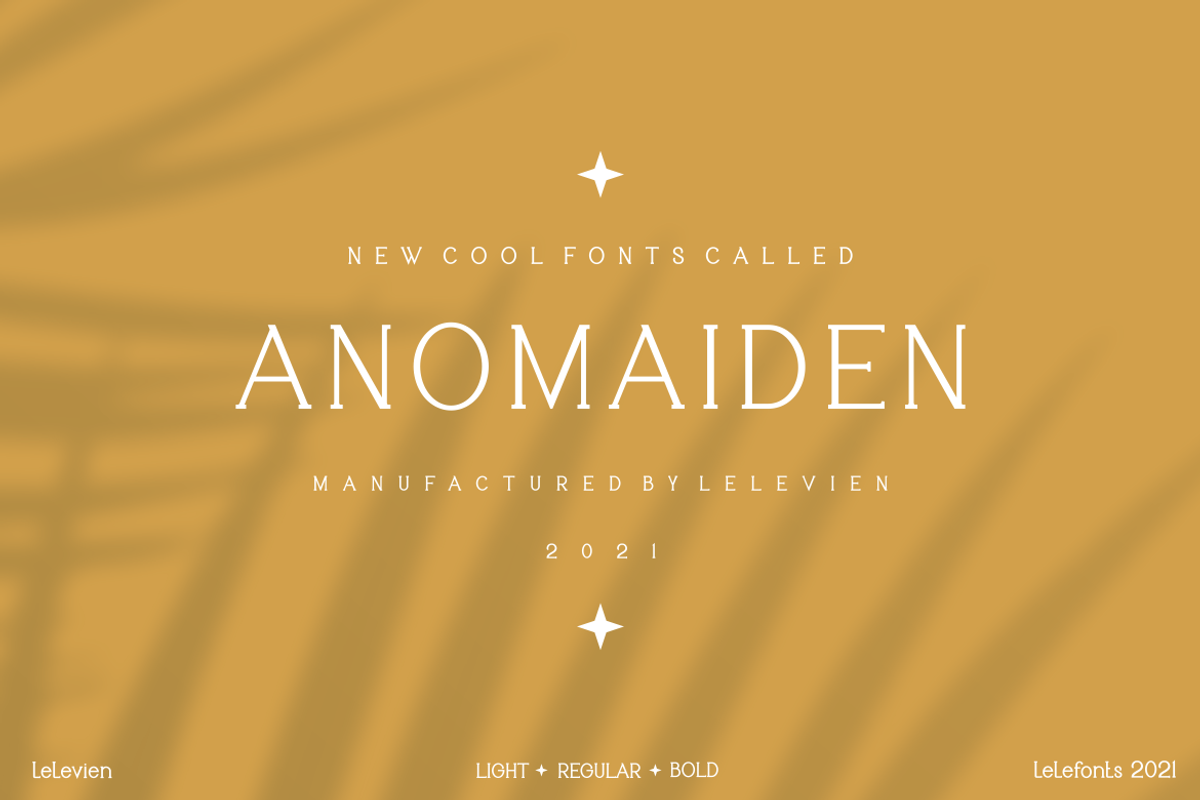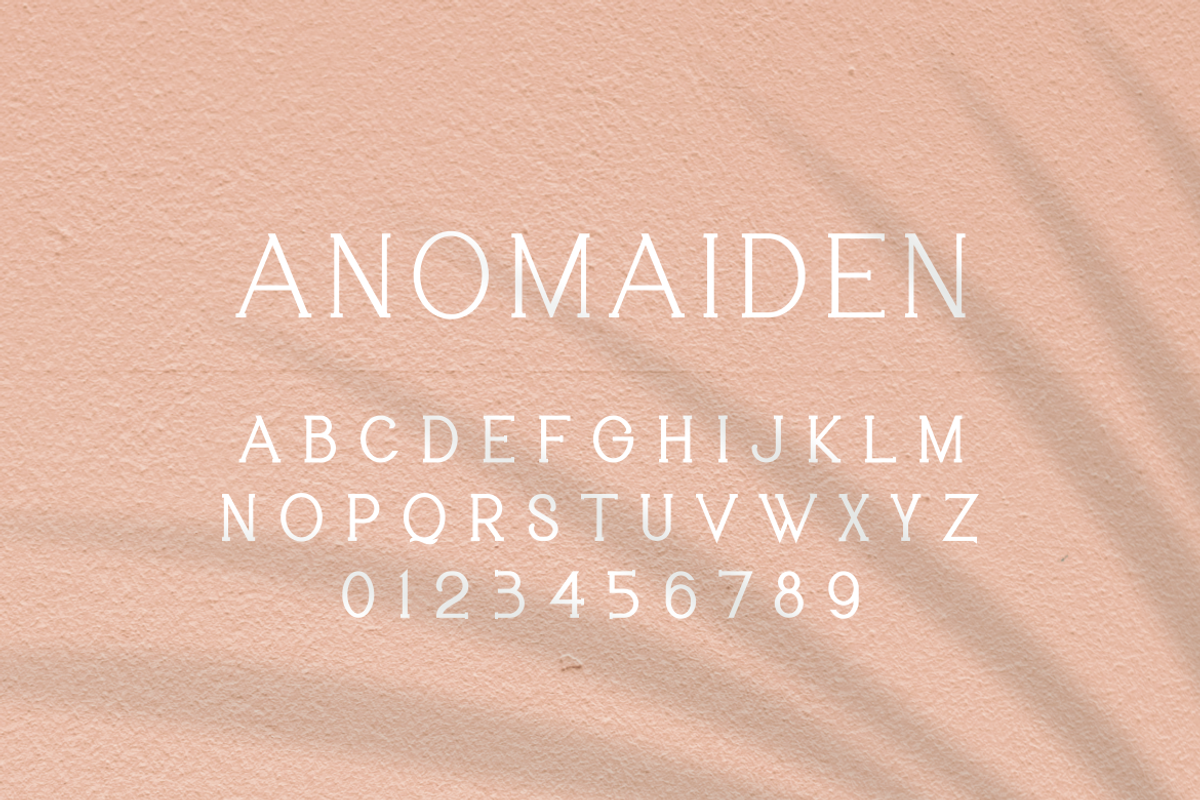
ANOMAIDEN MODERN SERIF FONT FAMILY
ANOMAIDEN FONT FAMILY is a luxury and authentic display font. consist of 3 different thickness suit your design taste and needed. The font is suitable for any branding project like logo, t-shirt printing, esport, and many more. outstanding in a wide range of contexts.